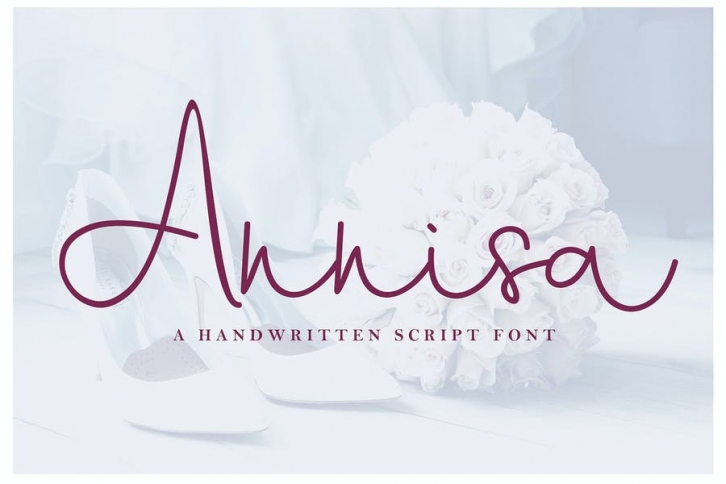
Annisa Script Font Download
Annisa Script - Beautiful Signature Font
Annisa Script is a stylish signature font that is inspired by modern branding and photography.
It’s easy to use, to create a stunning watermark for your photos, invitations, branding.
It also works great as a business signature or on other branding materials.
Each font has:
• Stylish handwritten style
• Special Ligatures